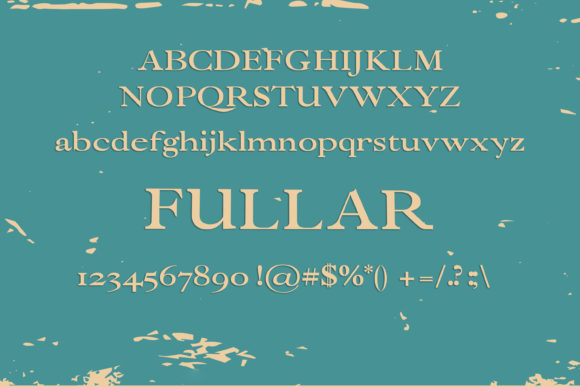
Introduction to Fullar Font
Have you ever been working on a creative project, only to find the perfect font to bring your vision to life? For many designers, this is a moment of pure joy – the moment when all the elements come together and the project starts to feel truly special. And for those who are looking for that extra something, we’re excited to introduce the Fullar Font.
This elegant typeface boasts a classic style that adds a unique touch to any crafting project. With its high-quality design, it’s the perfect addition to any designer’s toolkit. Whether you’re working on a personal project or creating designs for clients, the Fullar Font is sure to impress. And the best part? It’s a free download, making it a valuable resource for designers of all levels.
One of the standout features of the Fullar Font is its ability to be used with a transparent background, making it a versatile design resource that can be used in a variety of creative projects. Whether you’re working with graphics, logos, or other design elements, the Fullar Font is sure to add a touch of sophistication and elegance to your work.
Key Features of Fullar Font
- High-quality, professional font designed for creative projects and presentations, perfect as a design resource.
- Unique, modern design with a transparent background, ideal for overlaying on images or videos.
- Includes a range of characters and glyphs, including international characters and symbols.
- Resolution-independent, scalable font, suitable for use in various sizes and resolutions.
- Perfect for use in digital design, graphic design, and visual communication projects.
Honest Review: Fullar Font
I recently came across the Fullar Font while searching for a free design resource for a creative project, and I must say it’s been a pleasant surprise. The font’s clean and modern aesthetic makes it perfect for any design-related task.
- ✨ The Fullar Font has a high quality, transparent background that allows for seamless integration with any background image or color.
- ✨ The font is highly versatile and can be used for a wide range of creative projects, from logos to typography-based designs.
- ⚠️ The Fullar Font may not be suitable for use in small font sizes, as the letters can become slightly blurry.
- ⚠️ Some users may find the font’s modern aesthetic too minimalist, which can be a drawback for those who prefer more ornate typography.
Overall, I’m quite impressed with the Fullar Font. It’s a fantastic addition to any designer’s toolkit, and its high quality and versatility make it a great choice for any creative project. If you’re looking for a reliable design resource, I’d definitely recommend giving the Fullar Font a try.
Tips for Getting the Most Out of Fullar Font
To get the most out of the Fullar Font, experiment with different font sizes and styles to create a visually appealing design. You can also use the font in combination with other design elements to add depth and interest to your project.
The Fullar Font is perfect for use in a variety of creative projects, including logos, brochures, posters, and presentations. It’s also a great choice for designers looking for a high-quality, free download font.
Alternatives to Fullar Font
Montserrat is a popular, high-quality font suitable for various design projects. It features a clean and modern design, making it ideal for creative projects that require a professional look. When to use: For projects that require a sans-serif font with a transparent background, Montserrat is a great alternative. It’s also available for free download, making it a great design resource. Comparison to Fullar Font: Montserrat has a more modern and sleek design compared to Fullar Font.
Lato is a beautiful, high-quality font that is perfect for creative projects that require a touch of elegance. It features a modern design with a transparent background, making it ideal for projects that require a clean and minimalist look. When to use: For projects that require a sans-serif font with a high-quality design, Lato is a great alternative. It’s also available for free download, making it a great design resource. Comparison to Fullar Font: Lato has a more elegant and sophisticated design compared to Fullar Font.
Can I modify the Fullar Font for my specific design needs?